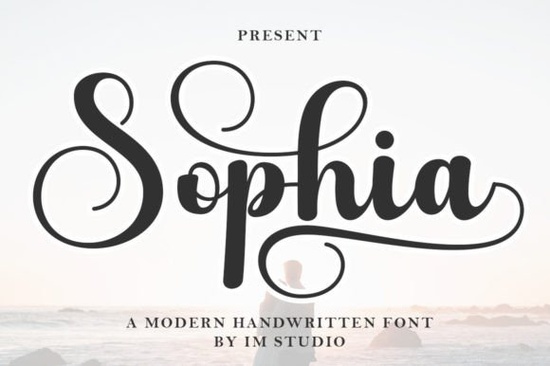
If you're looking for a handwritten font that feels personal without being messy, Sophia Font is worth your attention. It’s clean, cheerful, and full of character perfect for projects where warmth and approachability matter. Whether you’re designing wedding invitations, greeting cards, affirmation prints, or even packaging for small-batch goods, Sophia adds a human touch without overwhelming your layout.
What makes Sophia especially handy is its PUA (Private Use Area) encoding. That means all the extra glyphs, alternate letters, and swashes are built right in and easy to access through design software like Adobe Illustrator, Photoshop, or even free tools like Canva (with OpenType support). You don’t need to hunt through character maps you can simply type and let the font do the rest.
Why choose a handwritten font like Sophia?
Handwritten fonts bridge the gap between digital design and real-life emotion. They mimic the intimacy of pen-on-paper, which is why they’re so popular for:
- Wedding stationery (invitations, place cards, menus)
- Personalized gifts (mugs, journals, wall art)
- Wellness content (affirmation cards, journal prompts)
- Small business branding (boutique logos, product labels)
Sophia stands out because it avoids the overly loopy or chaotic look some script fonts fall into. Its strokes are consistent, its baseline is steady, and it reads clearly even at smaller sizes making it practical for both headlines and short body text.
Each of these fonts serves a slightly different aesthetic, but Sophia hits a sweet spot: modern enough for contemporary branding, yet warm enough for heartfelt messages.
Real-world uses for Sophia Font
One standout application is in the Making Positive Affirmation Shadowboxes Creative Fabrica class, where Sophia’s legibility and gentle curves make affirmations feel inviting rather than clinical. But beyond that, here are a few ways creators are using it:
- Print-on-demand sellers use Sophia for quote-based wall art, especially around themes like self-care, motherhood, or mindfulness.
- Event planners pair it with serif or sans-serif fonts for elegant contrast on RSVP cards or thank-you notes.
- Crafters love it for hand-lettered-style SVG files used in Cricut or Silhouette projects thanks to its clean lines and connected alternates.
- Small businesses apply it to product tags, soap labels, or bakery packaging where a “made with care” impression matters.
Because it includes swashes and stylistic alternates, you can customize words like “love,” “forever,” or “breathe” to feel uniquely illustrated without needing illustration skills.
Tips for getting the most out of Sophia
To truly take advantage of its OpenType features:
- Use software that supports glyph panels (Adobe apps, Affinity Designer, or Font Book on Mac).
- Enable “Contextual Alternates” and “Stylistic Sets” in your font settings for automatic swash substitutions.
- Avoid using all caps handwritten fonts like Sophia shine in lowercase or mixed case.
- Pair it with a simple sans-serif (like Montserrat or Lato) to keep your design balanced.
Remember: less is more. One or two words in Sophia as a headline or accent will often have more impact than entire paragraphs.